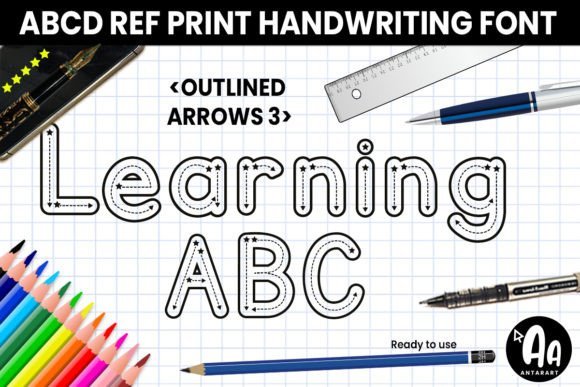
Unlocking the Power of ABCD Ref Outlined Arrows3 Font
As a designer, have you ever found yourself in the midst of a creative project, searching for the perfect font to add that extra touch of personality? Perhaps you’re working on a project that requires a fun and interactive way to teach children the alphabet. Whatever your project may be, the ABCD Ref Outlined Arrows3 Font is an excellent choice to consider.
This unique outline display font is based on the D’Nealian Method US school, making it an invaluable resource for those looking to create engaging worksheets and learning materials. Not only is it a great tool for teachers and educators, but it’s also a valuable asset for designers who want to add a touch of whimsy and playfulness to their projects. With its compatibility with various design software, the ABCD Ref Outlined Arrows3 Font is sure to become a staple in your design arsenal.
Abcd Ref Outlined Arrows3 Font Key Features
- Unique Outline Arrows: This font features a set of outlined arrows with a modern and sleek design, perfect for creating visually appealing graphics and designs.
- Wide Character Set: The font includes a wide range of characters, including uppercase and lowercase letters, numbers, and punctuation marks, making it suitable for various types of projects and designs.
- Perfect for Infographics and Presentations: The outlined arrows in this font make it an ideal choice for creating infographics, presentations, and other visual aids that require a touch of modernity and sophistication.
Review of Abcd Ref Outlined Arrows3 Font
Overall, I think Abcd Ref Outlined Arrows3 Font is a solid addition to any designer’s toolkit. ✨ The outlined arrow style is modern and clean, making it perfect for infographics, presentations, and other visual content. The font is also highly customizable, allowing you to adjust the size, color, and line thickness to fit your specific design needs.
One of the things that stands out about this font is its versatility. ✨ You can use it to create a wide range of visual elements, from simple arrows to more complex diagrams. The font is also highly legible, making it easy to read even at small sizes.
- ⚠️ Limited character set: While the font has a wide range of arrow styles, it’s limited in terms of the number of characters available. This may make it less suitable for longer blocks of text.
- ⚠️ Not ideal for small text: While the font is highly legible, it’s not ideal for small text sizes. At very small sizes, the lines can become blurry and difficult to read.
Overall, I think Abcd Ref Outlined Arrows3 Font is a great choice for designers who need a modern and customizable arrow font. With its wide range of styles and high level of customizability, it’s a versatile tool that can be used in a variety of different contexts.
Abcd Ref Outlined Arrows3 font is ideal for creating diagrams, flowcharts, and infographics. It’s also great for highlighting key information or creating call-out boxes.